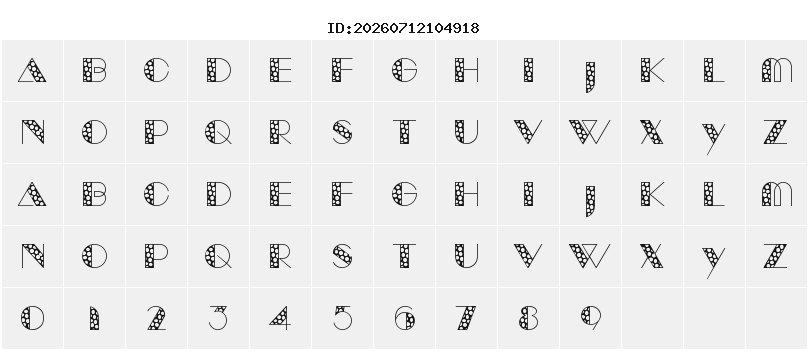
• Font Name: Manbow Spots
• Designer: Ray Larabie
• Manufacturer: Ray Larabie
About Manbow Spots.ttf
Manbow Spots.ttf is a modern, elegant sans-serif font designed for ultimate readability and visual harmony. Perfect for branding, headlines, web design, and print materials.